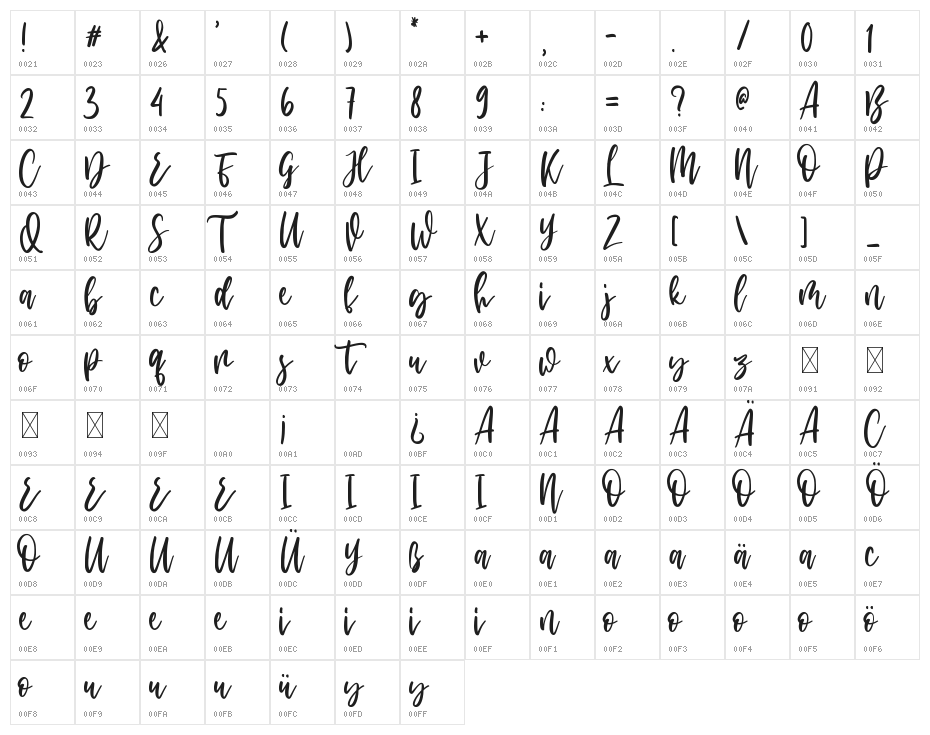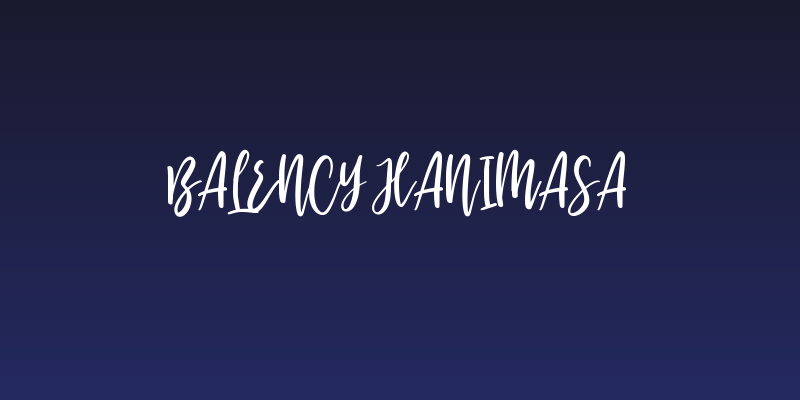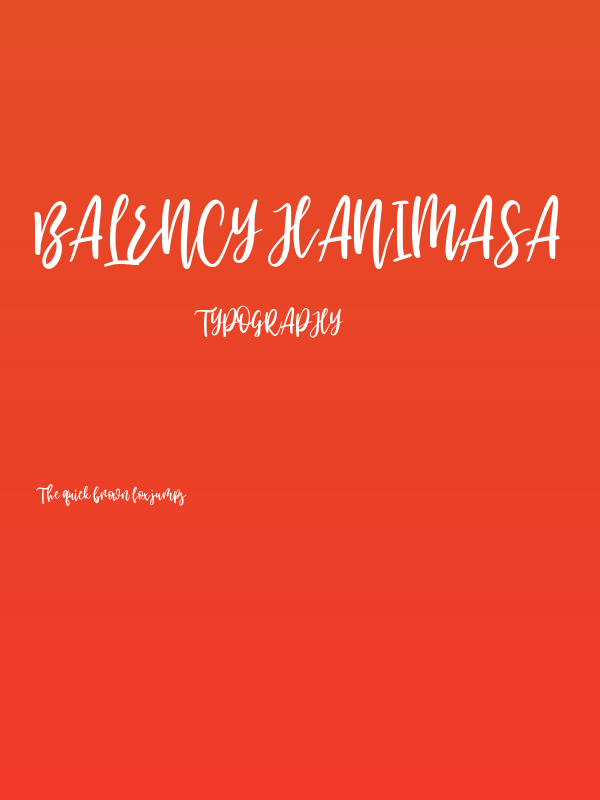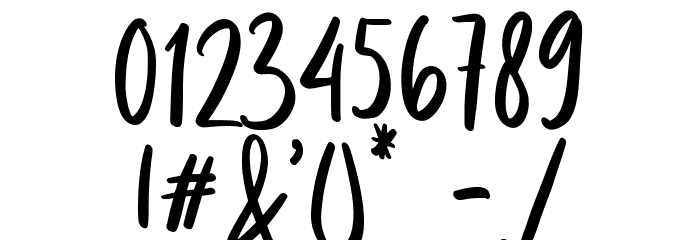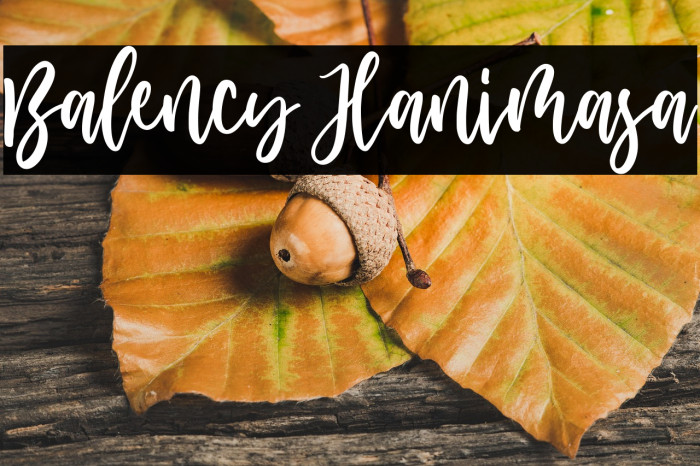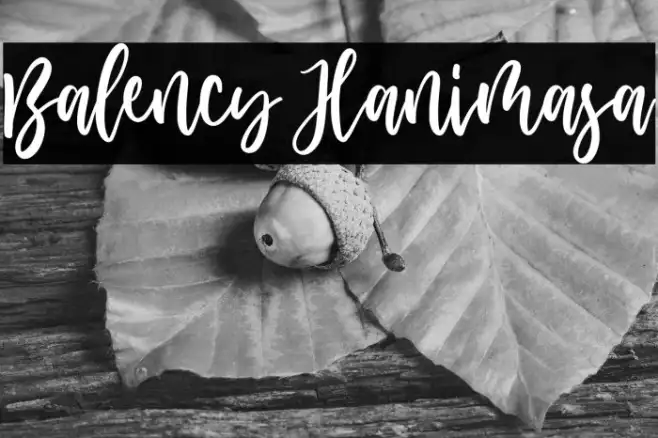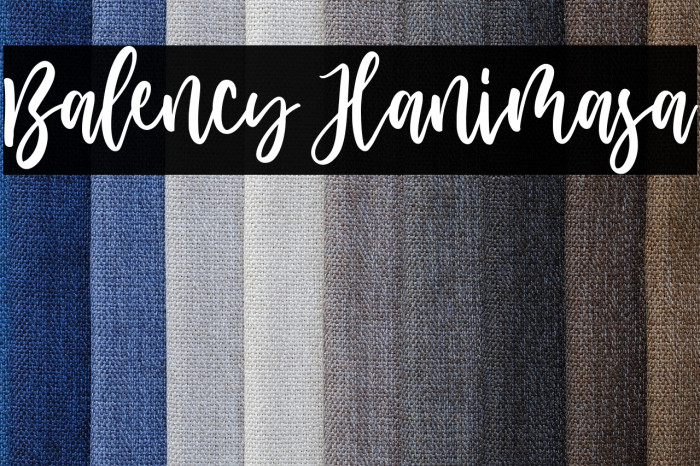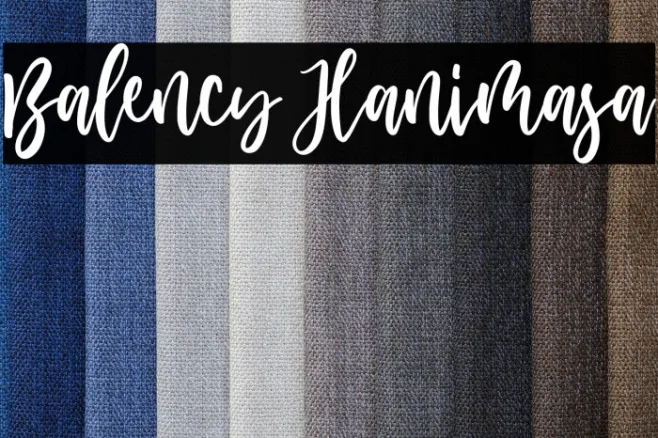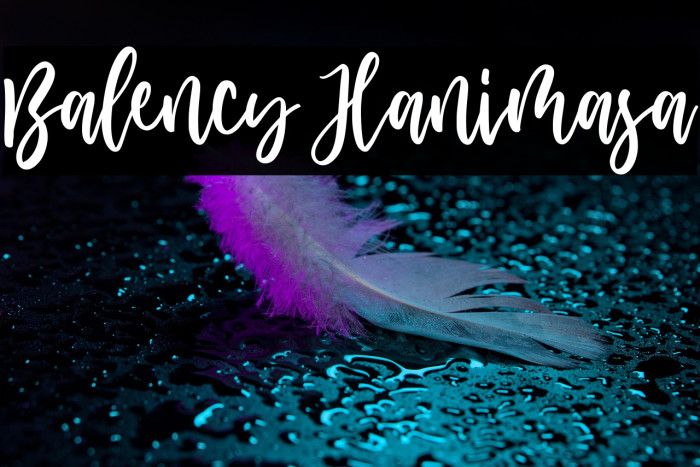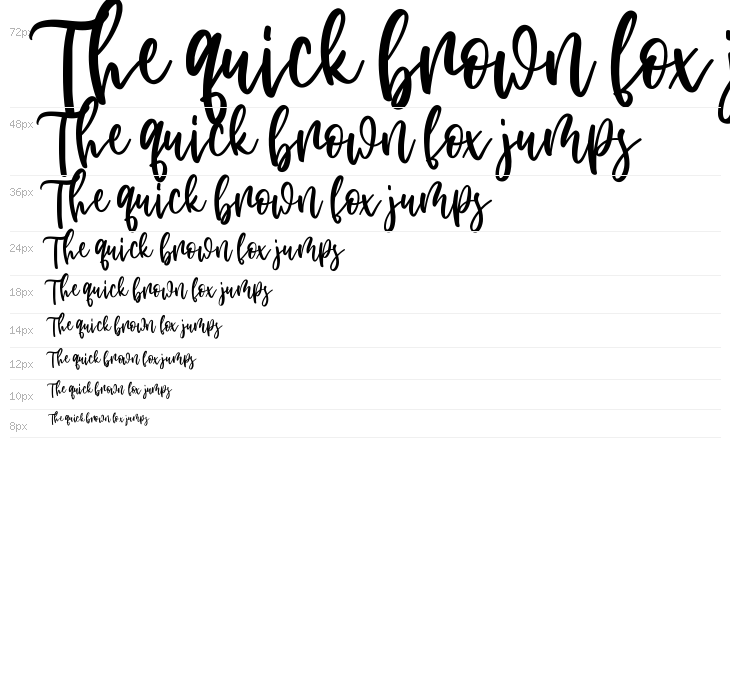
Balency Hanimasa Font
Balency Hanimasa Description
This font features a lively and expressive handwritten style, characterized by its fluid and dynamic strokes. The letters are connected in a cursive manner, giving it a natural and personal touch. The uppercase letters are bold and prominent, while the lowercase letters maintain a consistent flow, enhancing readability. The numerals and special characters are crafted with the same attention to detail, ensuring a cohesive look across all elements. This font exudes a sense of creativity and spontaneity, making it ideal for projects that require a personal or artistic flair.